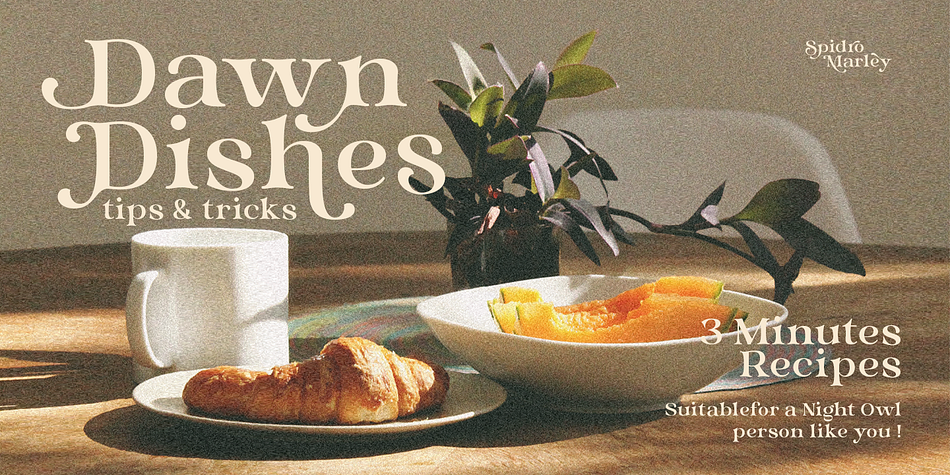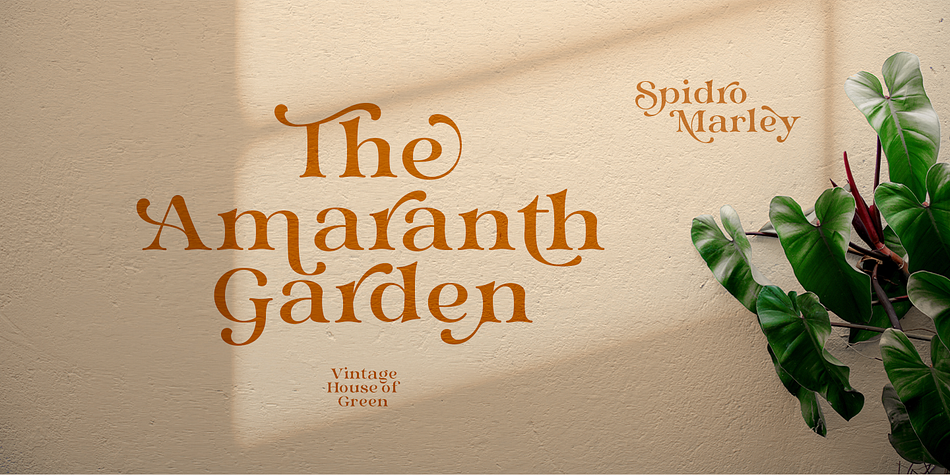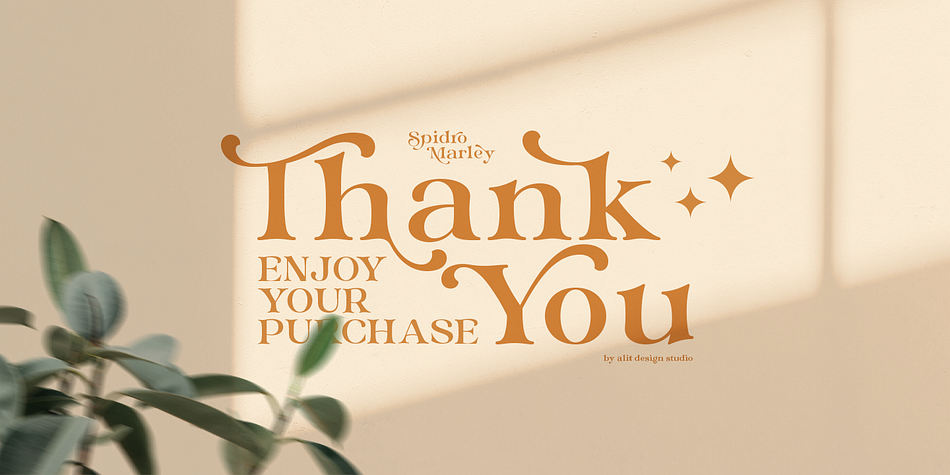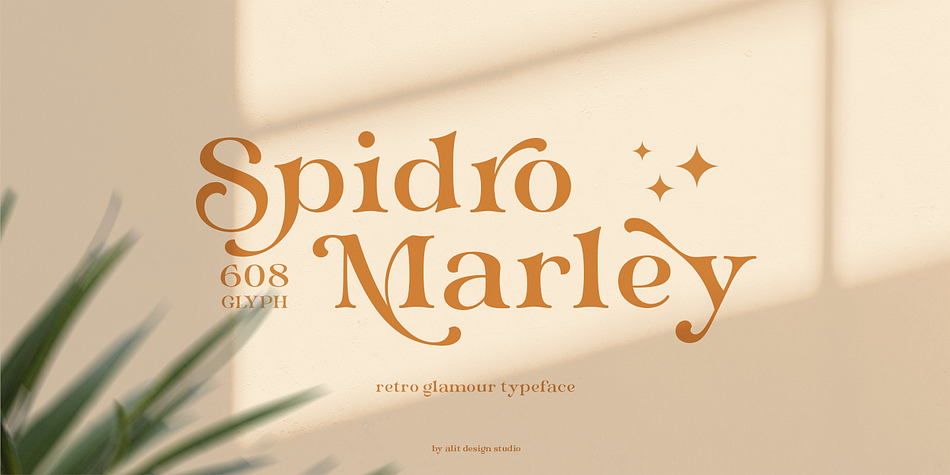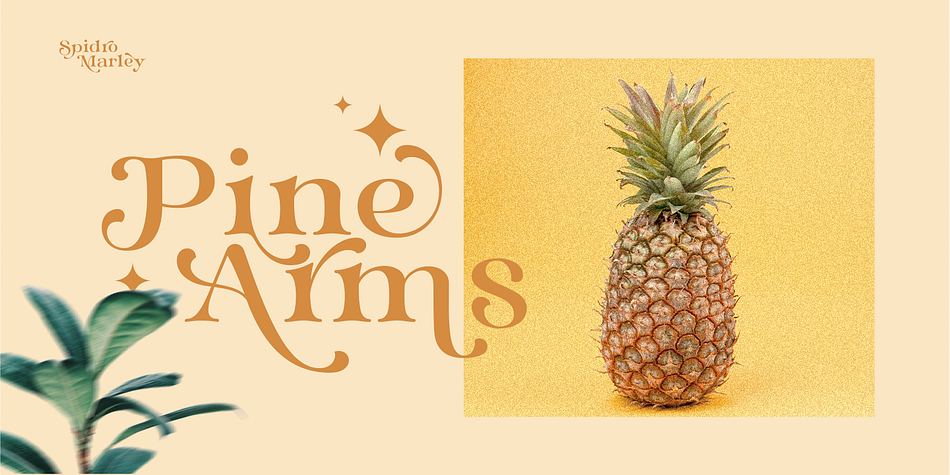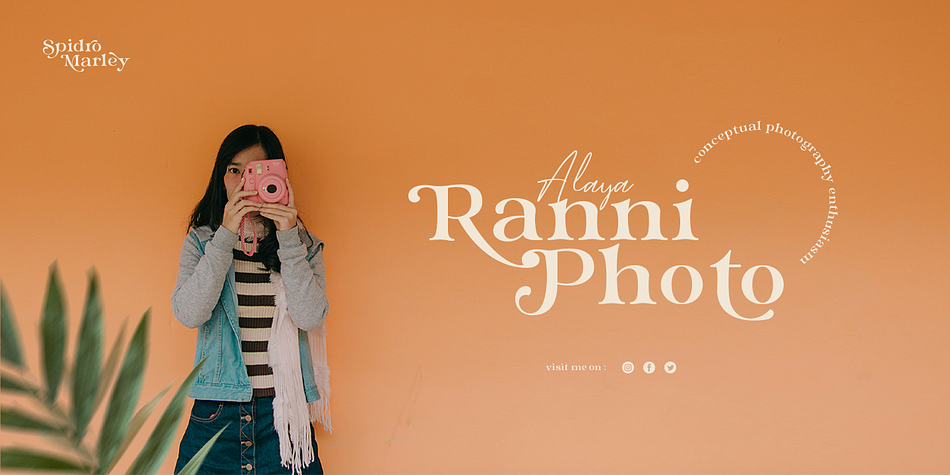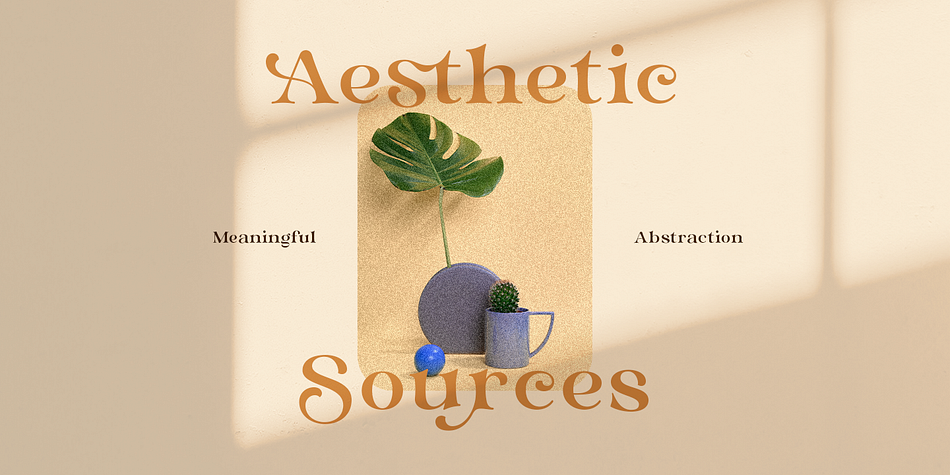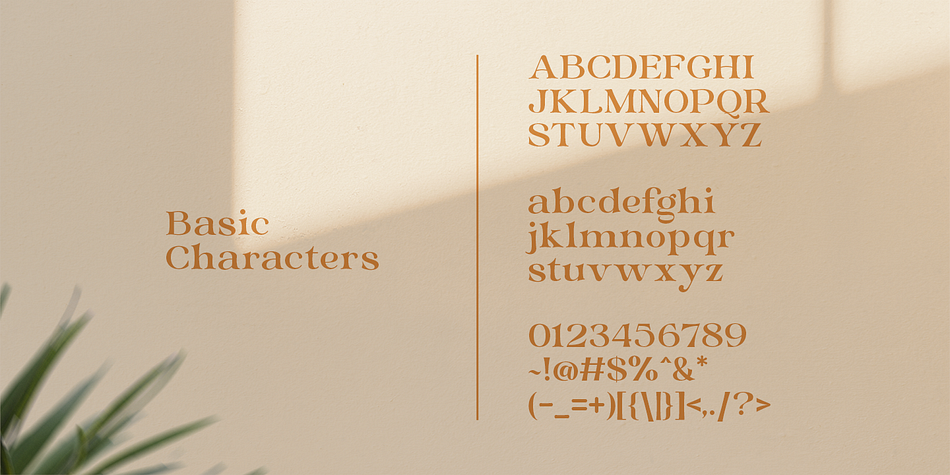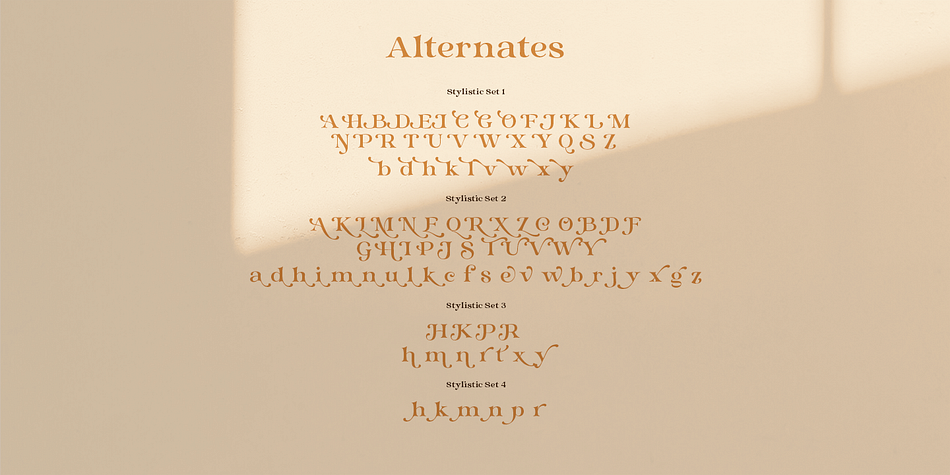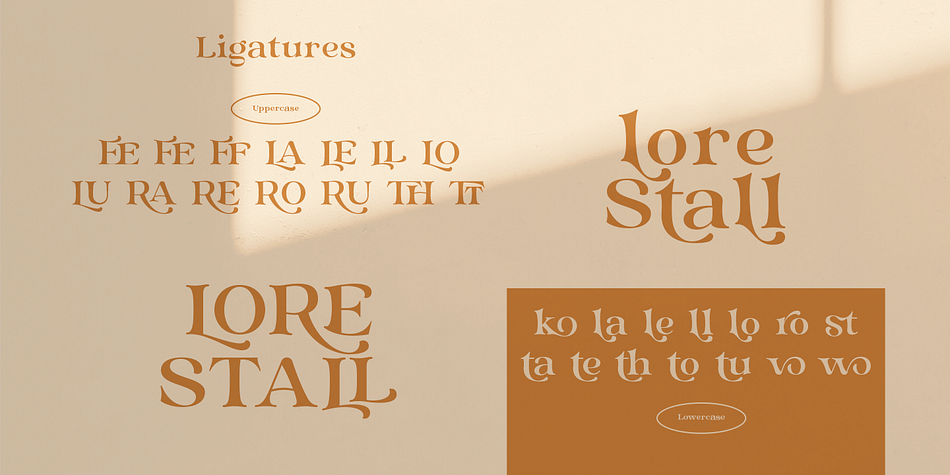
Designed by Alit Suarnegara, Spidro Marley is a display serif and retro font family published by Alit Design.
The Spidro Marley Serif typeface is an elegantly themed font that has a dynamic serif style. The details of the shape of the “Spidro Marley Serif Elegant typeface” are very smooth and flow to create unique and beautiful curves. Elegant Serif typefaces such as “Spidro Marley typeface” are very easy to apply to any design, especially those with an elegant and smooth concept, besides that this font is very easy to use both in design and non-design programs because everything changes and glyphs are supported by Unicode (PUA).
The Spidro Marley typeface contains 608 glyphs with many unique and interesting alternative options.